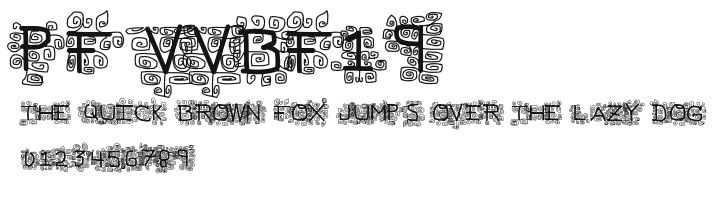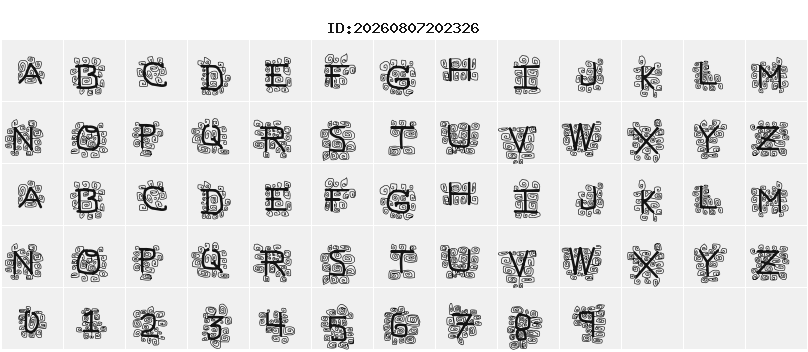
• Font Name: pf_vvbf19
• Full Font Name: pf_veryverybadfont19
• Designer: David E. Howerton
• Description: When taking notes in class at meetings during a game etc when the person speaking has said the same thing three times and someone asks them to repeat it again I start doodling around the letters in my notes.